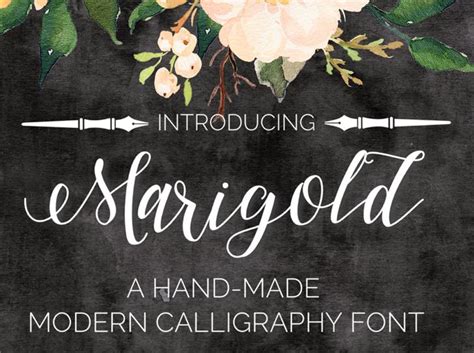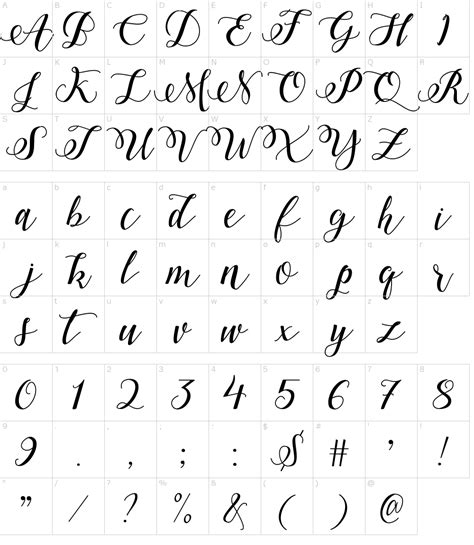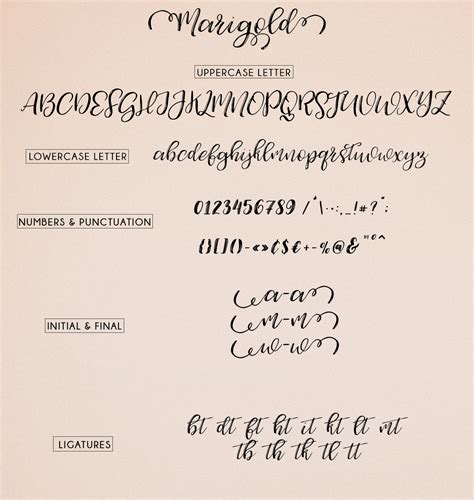
Marigold Script Font Free / Marigold Blossom, Hand Lettered Script Font | Hand ... : Bhanira font, handwritten font, personal font, script font.. Marigold script is an hand lettered font and includes lots of fun quirks for a more authentic look. Bhanira font, handwritten font, personal font, script font. Шрифт mistletoe font duo cyrillic. Aston script pro à € by teuku riski firmana. Latin script (free fonts) latin script (handwritten fonts) turkish fonts at fontlibrary.
With an imperfect style up and down, like a dancing letters, smooth, c.
Instantly add a chic style to your branding. Download and install free script fonts of the best quality from free fonts and use on your own personal and business related design purposes. You can download it for free and without registration here. With an imperfect style up and down, like a dancing letters, smooth, c. Of fonts downloaded yesterday :
Monotype script! is a trademark of monotype typography, ltd which may be registered in certain jurisdictions. Marigold script is best for: Of fonts downloaded yesterday : Download and install free script fonts of the best quality from free fonts and use on your own personal and business related design purposes. (cookies must be enabled in your browser.) Is coded with pua unicode, which allows full access to all the extra characters without having special designing software. More then 30 000 fonts on ttfonts.net! Guld script color by måns grebäck.
They are organized into highly regular formal types similar to cursive writing and looser, more casual scripts. Report a violation add to list. Marigold script is an hand lettered font and includes lots of fun quirks for a more authentic look. Marigold is a modern script typeface. Archive of freely downloadable fonts. Monotype script! is a trademark of monotype typography, ltd which may be registered in certain jurisdictions. Marigold blossom is a fun, hand lettered script font with over 90 alternate characters and ligatures. Enter some text in the box below, then click the preview button. Marigold font custom preview tool. My latest font is here and ready for the world to use! Amazing, antique, christmas, classy, decorative, fashion, mark simonson, roman, serif, traditional fonts, wedding font suited to your project, and it does not matter whether it is a printed poster or picture monitor. Download and install the marigold font for free from ffonts.net. Шрифт wild flower script cyrillic.